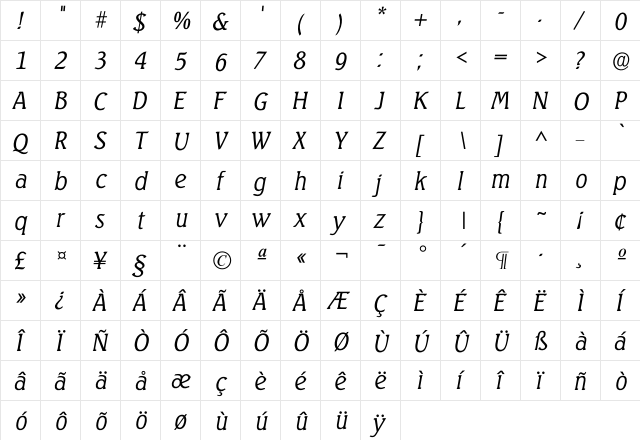
Iseagull Light
Design Context for Iseagull Typeface
Iseagull takes a measured approach to typography — its balanced proportions and neutral character make it a reliable workhorse for both digital and print work. The delicate stroke weight brings airiness and refinement to layouts.